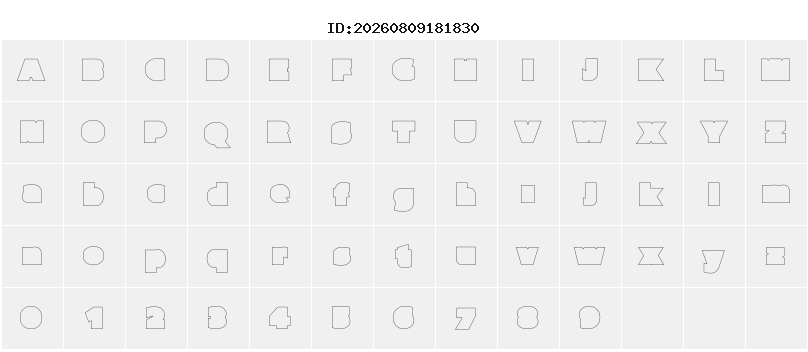
Parafuse Ultra Black Outline Preview
• Font Name: Parafuse Ultra Black Outline
• Font Style: UltraBlackOutline
• Full Font Name: Parafuse Ultra Black Outline
• PostScript Name: ParafuseUltraBlackOutline
About Parafuse Ultra Black Outline.ttf
Parafuse Ultra Black Outline.ttf is a modern, elegant sans-serif font designed for ultimate readability and visual harmony. Perfect for branding, headlines, web design, and print materials.